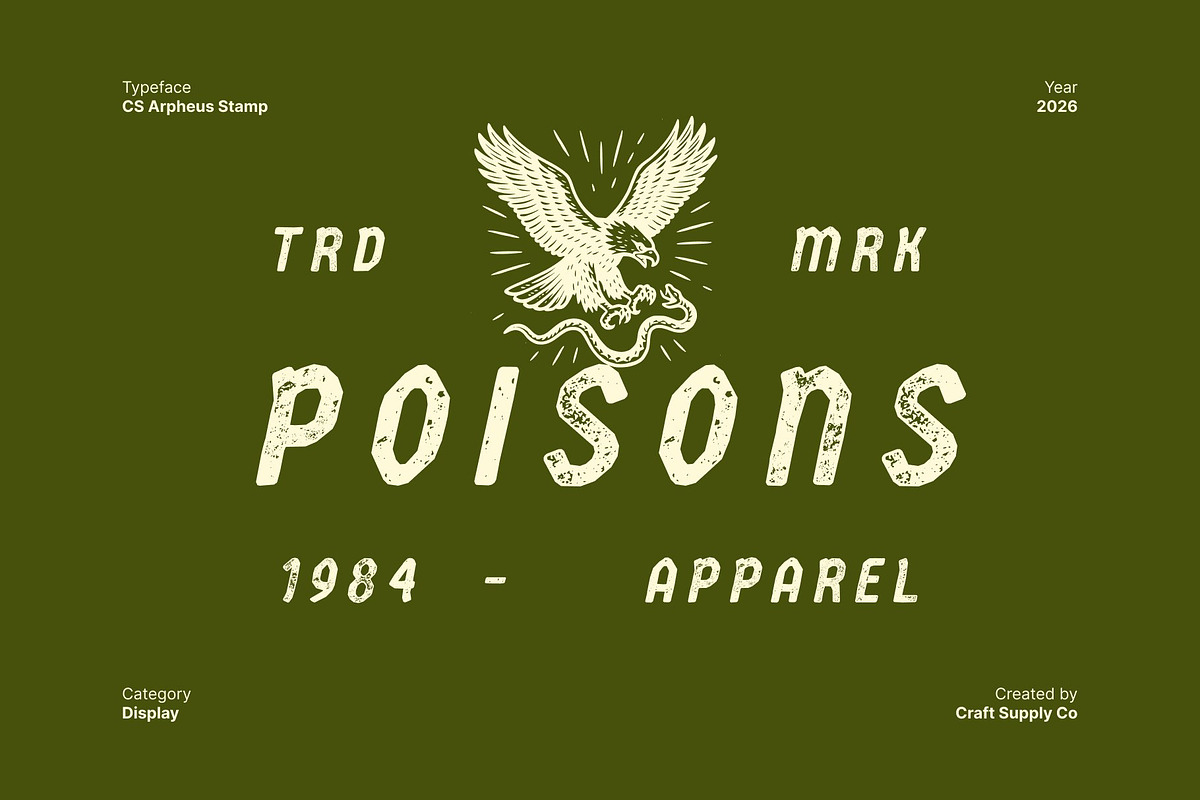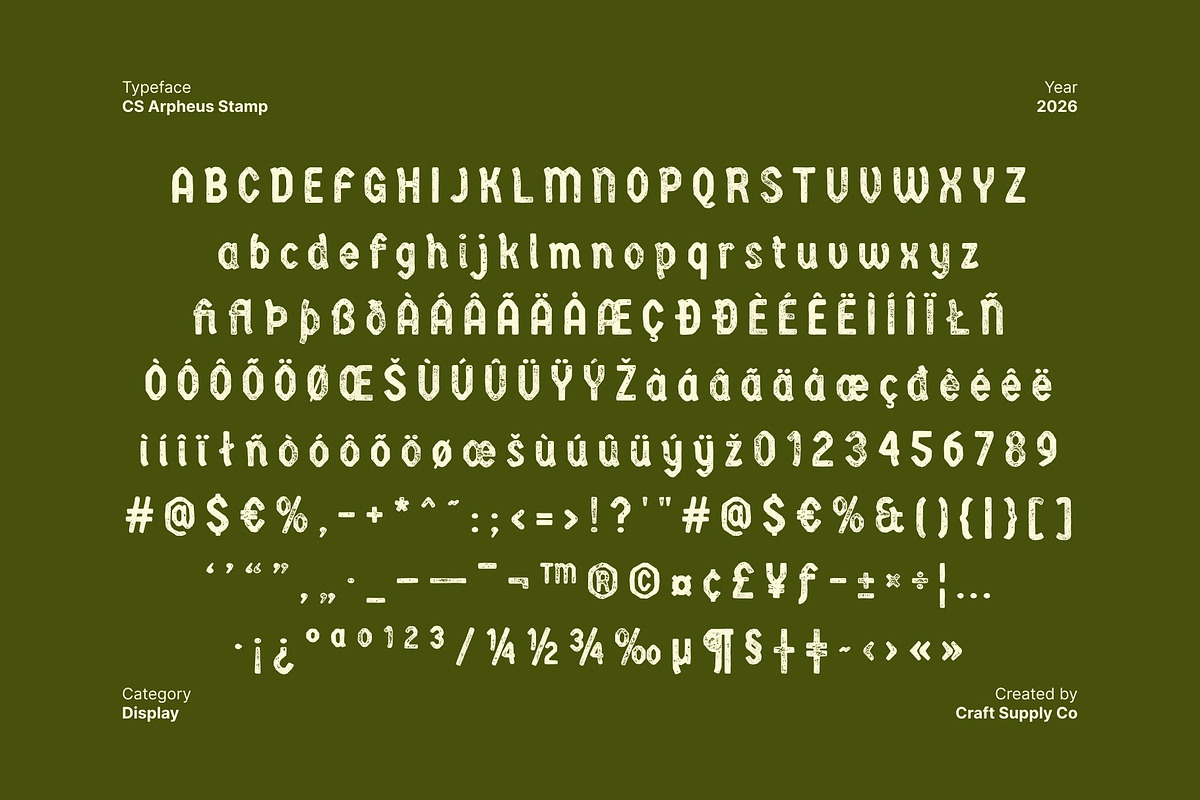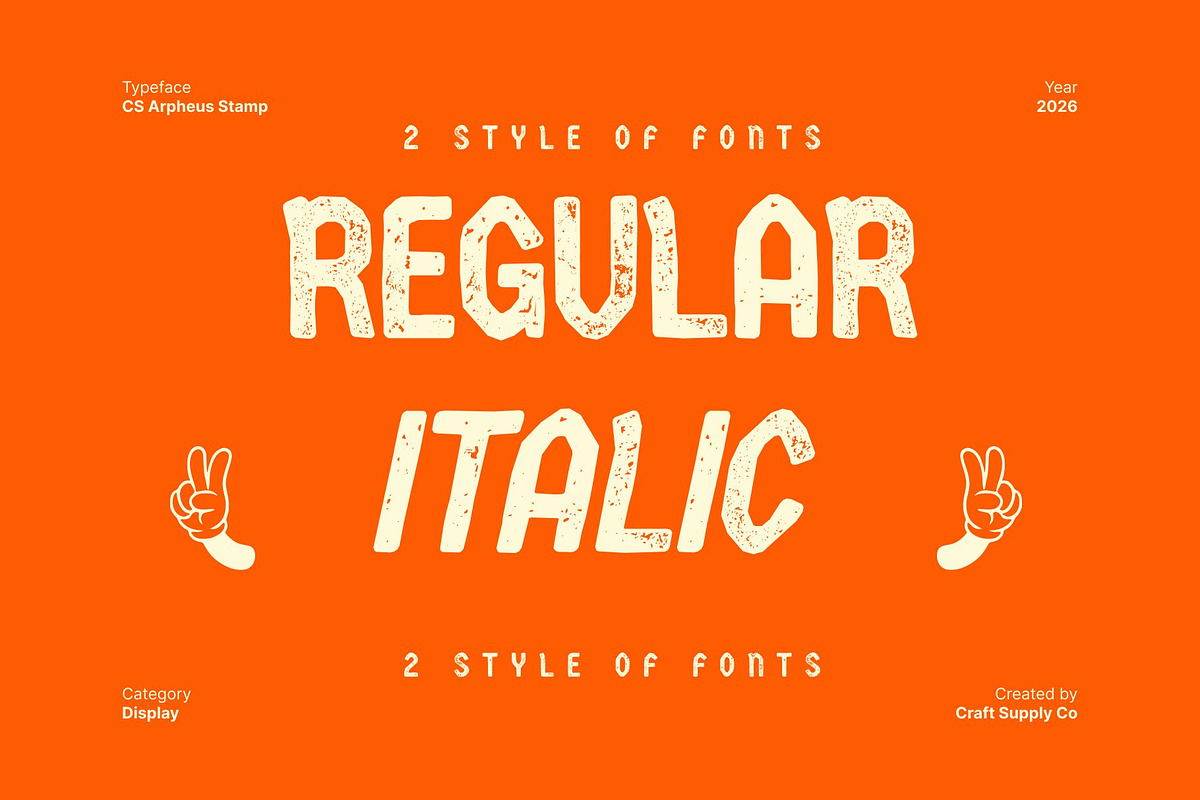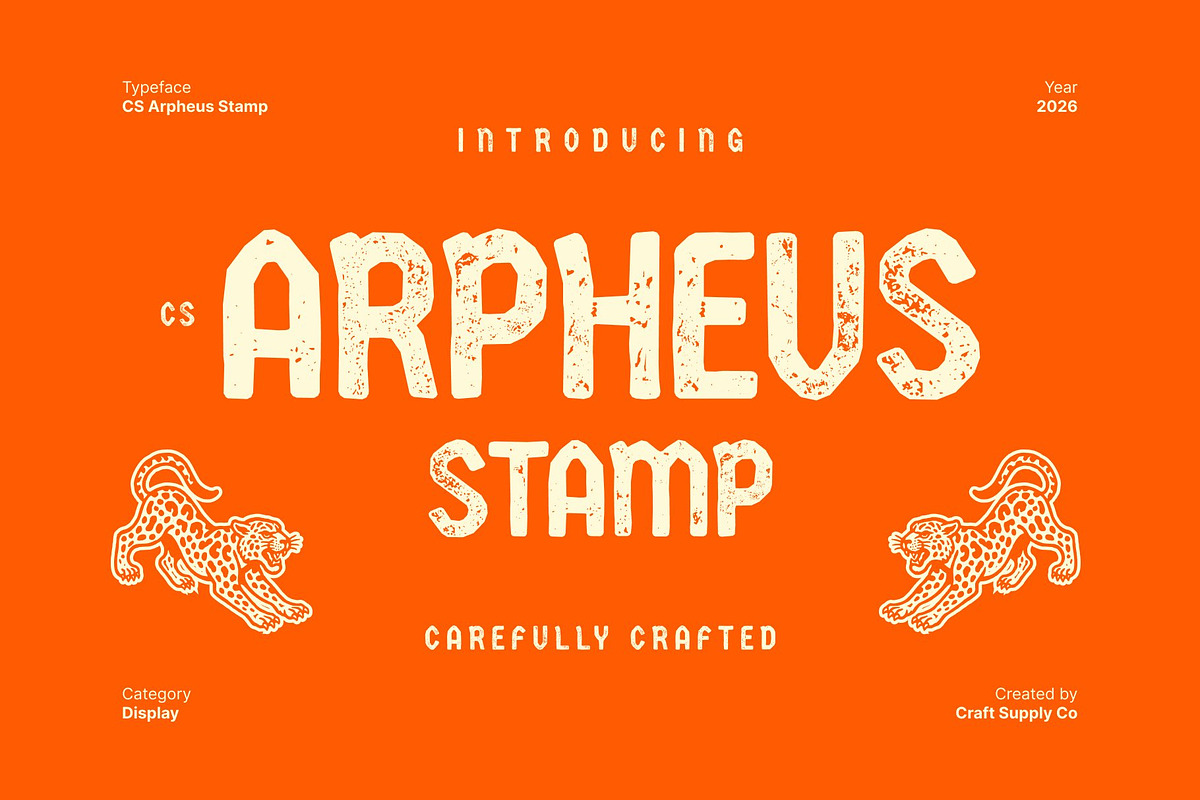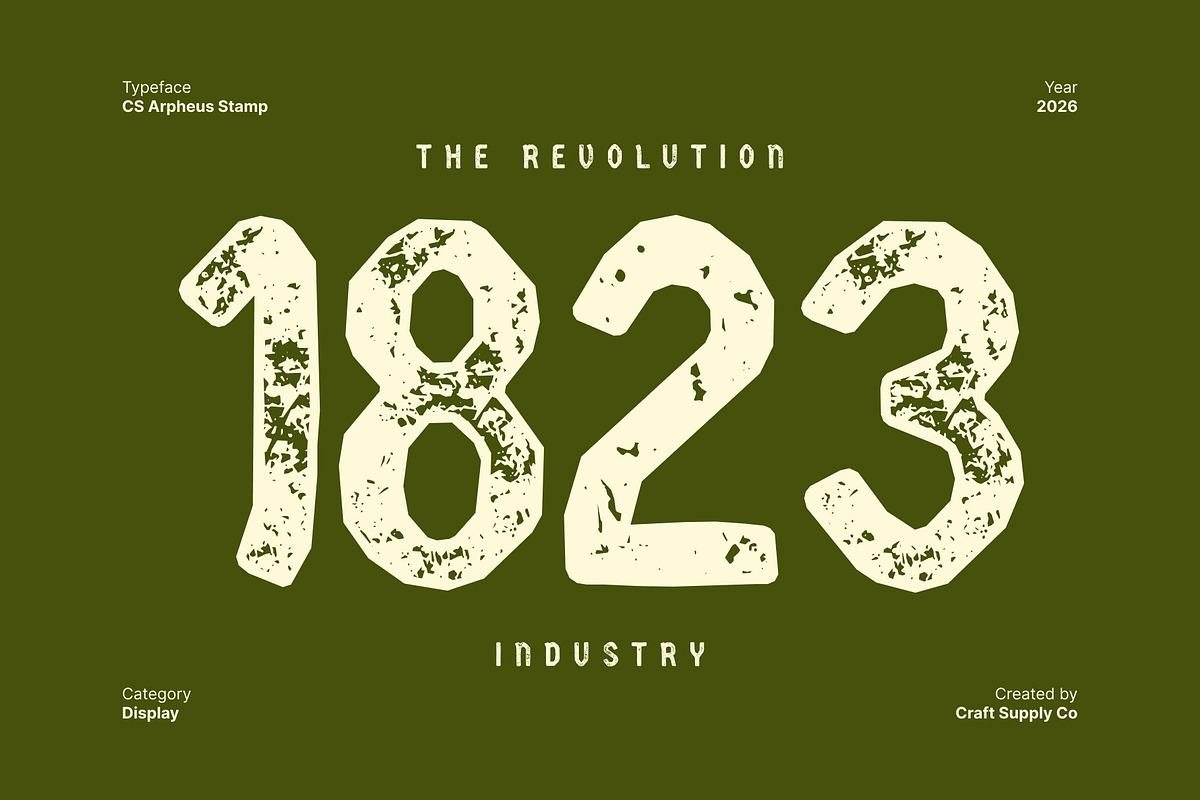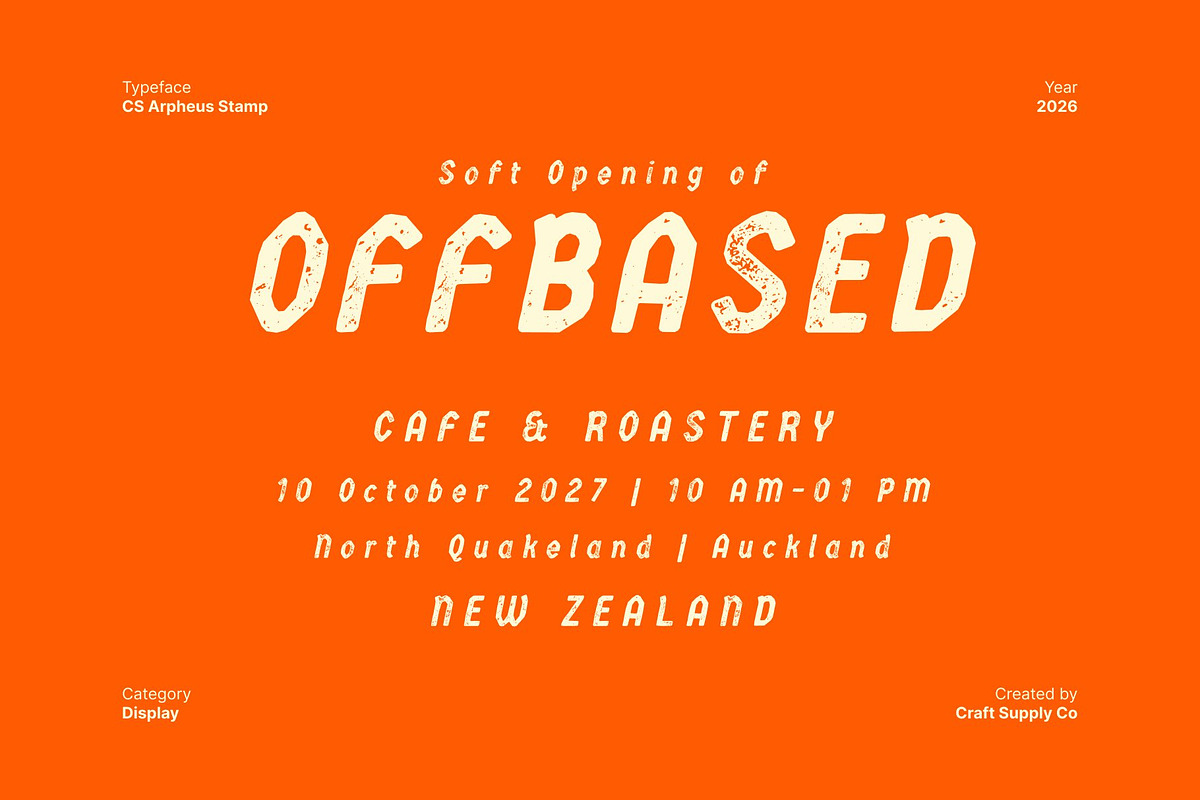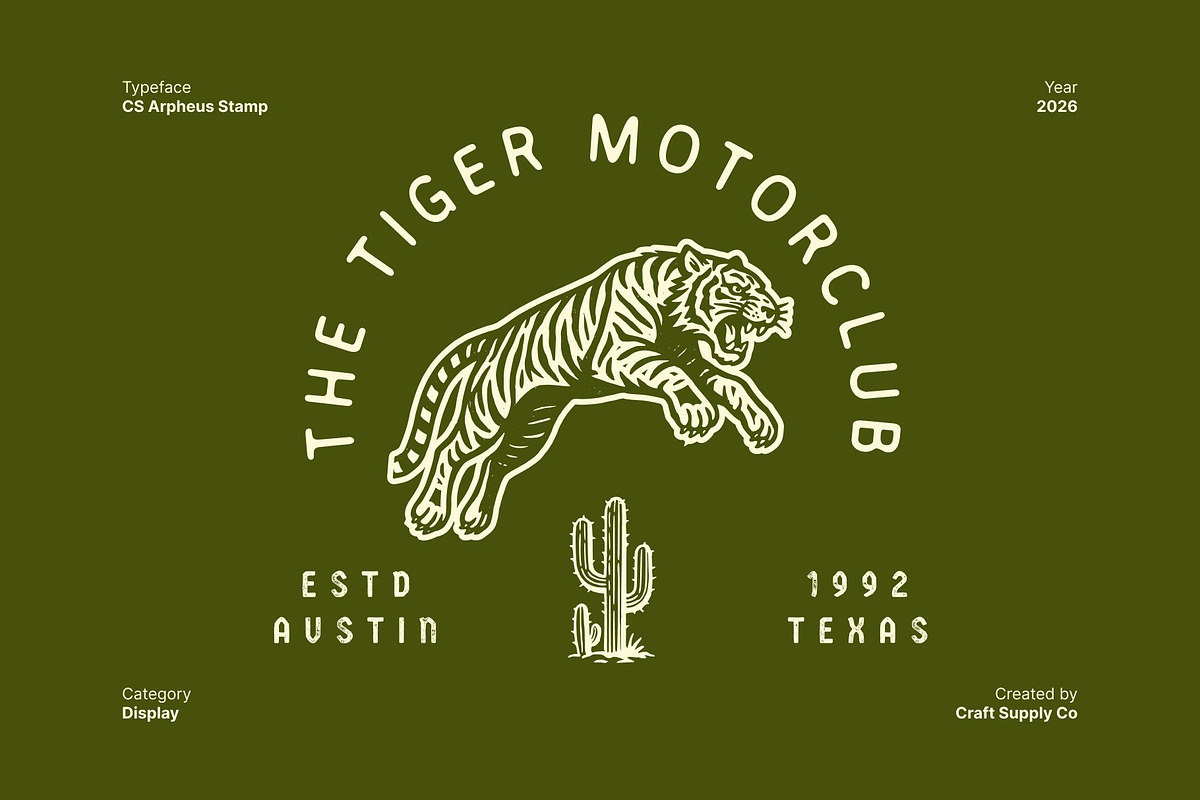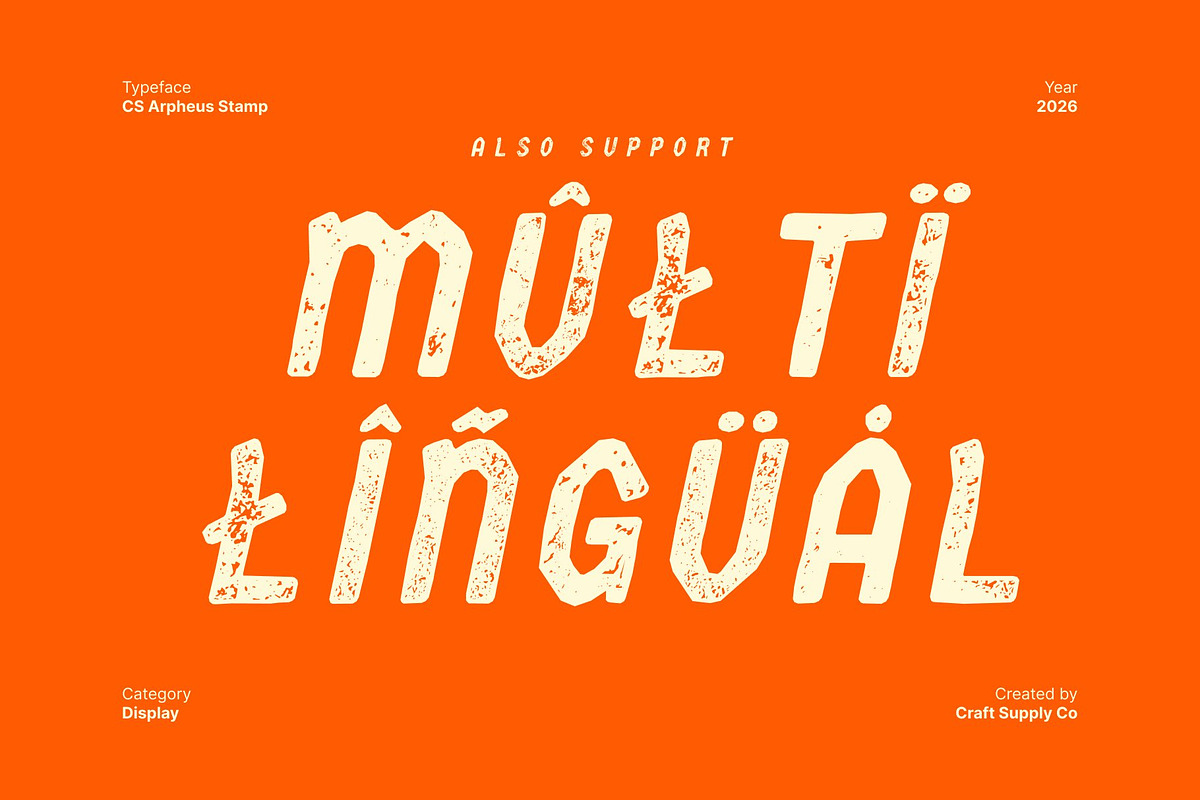
CS Arpheus Stamp
CS Arpheus Stamp – Modern Strength with Textured Authority
Display Sans Serif with Contemporary Power This is a modern display sans serif font crafted to deliver strong visual impact. Its bold, stylish letterforms project confidence and authority, combining contemporary aesthetics with a powerful typographic presence. Every curve and angle is carefully shaped to create a sleek yet assertive character suited for modern creative work.
Distinctive Letterforms with Refined Geometry Featuring unique shapes and balanced proportions, this font brings individuality to every composition. Sharp details and confident structure ensure each letter stands out while maintaining visual harmony across words and layouts. The result is a typeface that feels expressive, modern, and unmistakably bold.
Stamped Texture for Authentic Visual Depth The stamped effect adds a rough, slightly uneven texture that introduces a handcrafted and authentic feel. This organic finish softens the precision of the letterforms, giving the font a subtle vintage edge while enhancing its character and visual depth. The texture creates a bold, tactile appearance that feels strong, real, and full of personality.
Perfect for Modern Branding and Creative Impact This is ideal for posters, branding, editorial headlines, packaging, and contemporary visual projects. With its modern structure, bold character, and stamped texture, it brings strength, style, and originality to every design perfect for creators who want their typography to speak with confidence and impact.